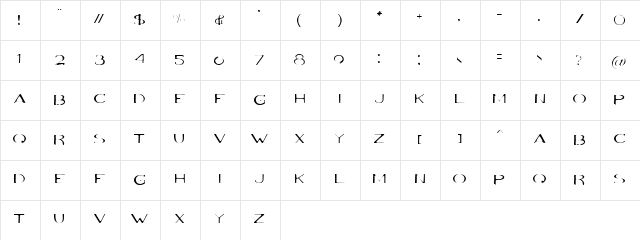
Volki Thin Regular Font Preview
Volki Thin Regular
Design Context for Volki Thin Typeface
Volki Thin offers clean, dependable letterforms without strong stylistic allegiance, making it a practical choice for designers who need flexibility. Its slender proportions lend an understated elegance to any composition.